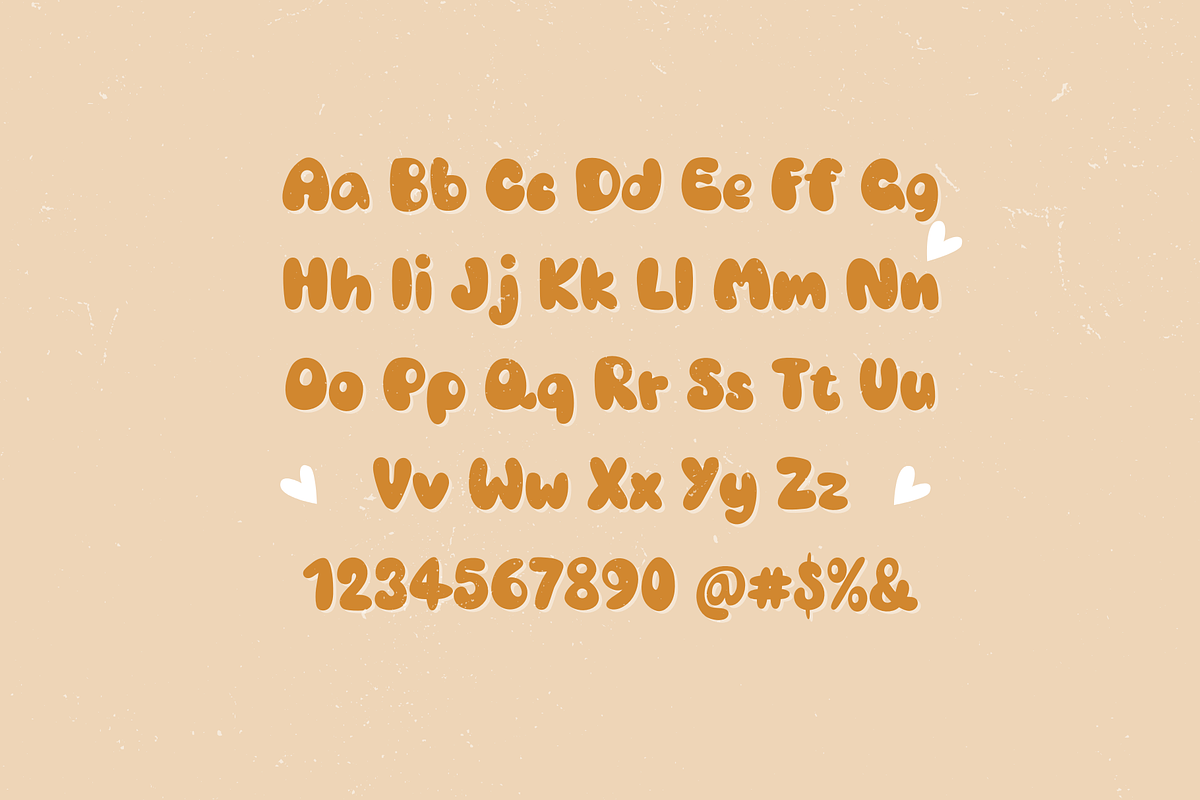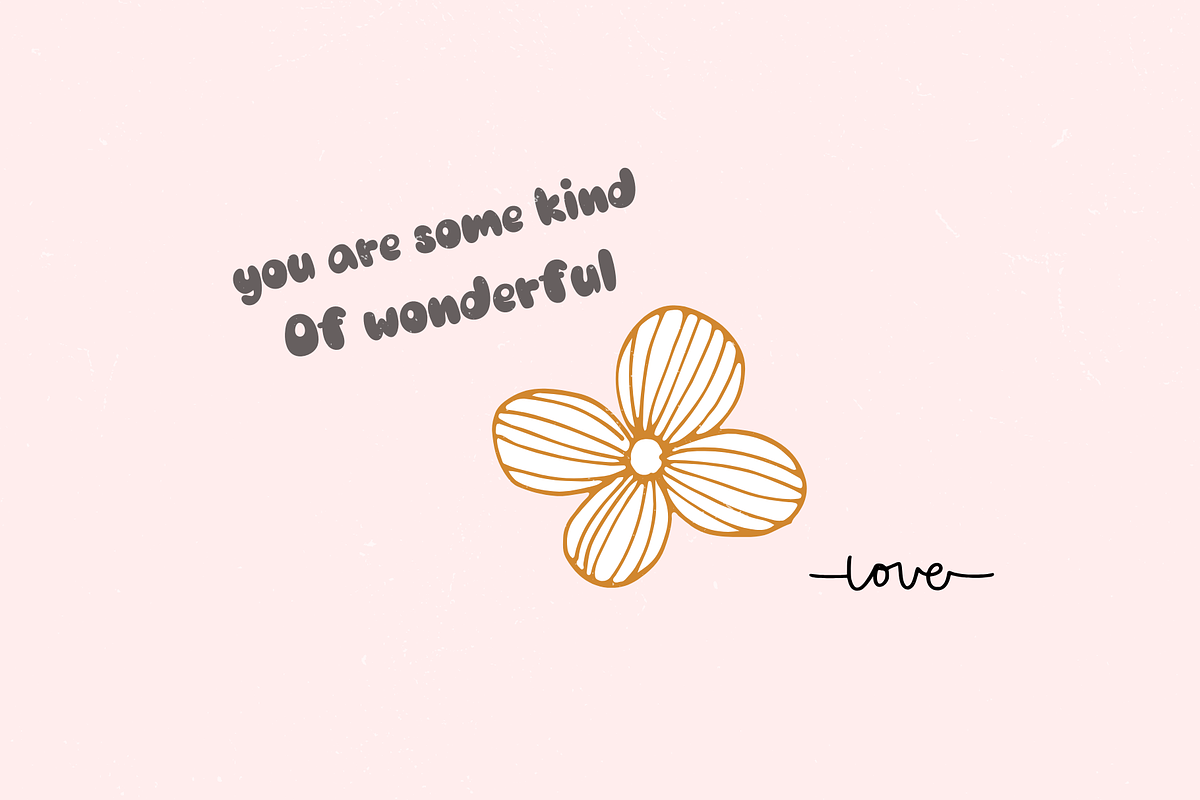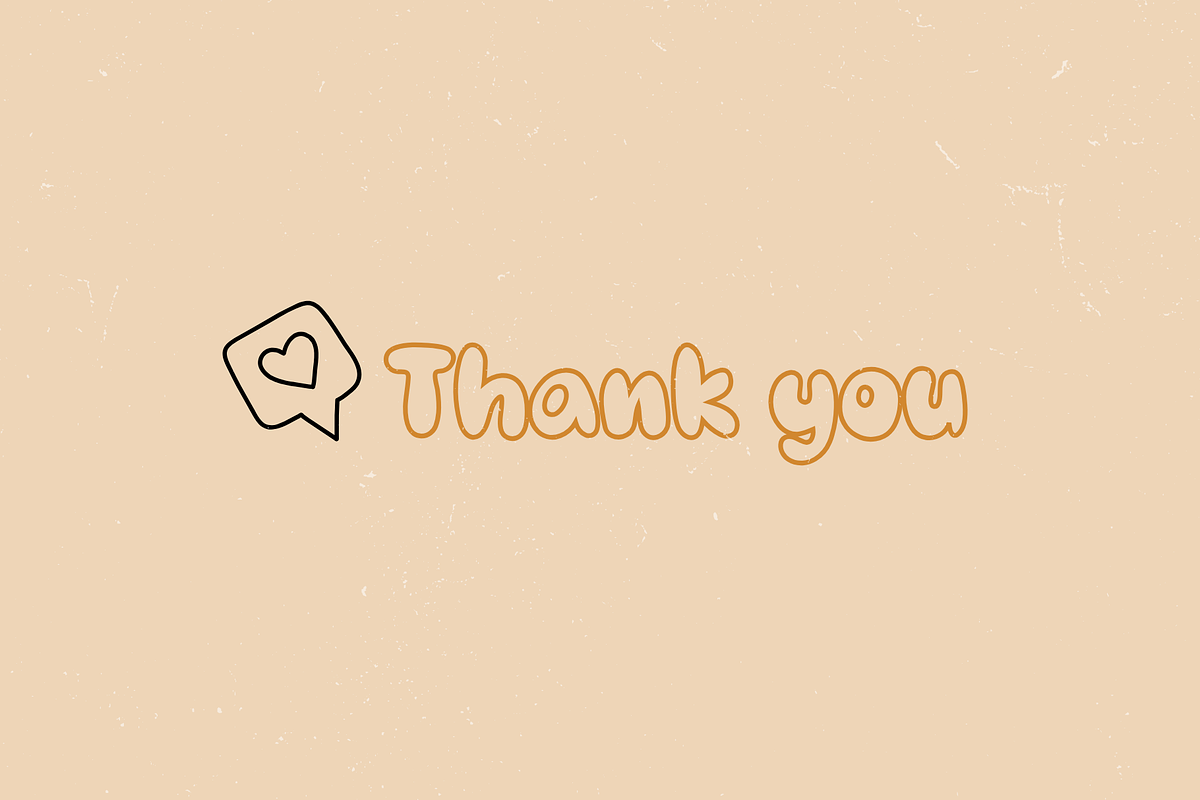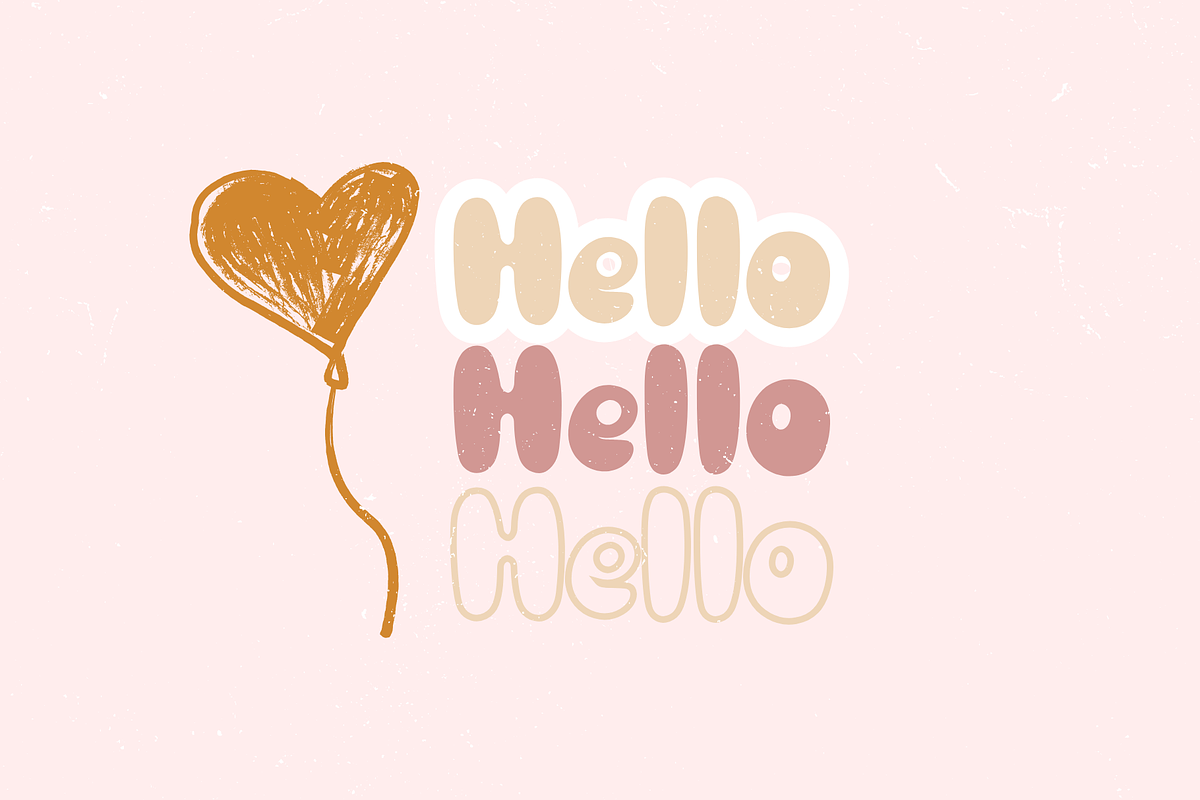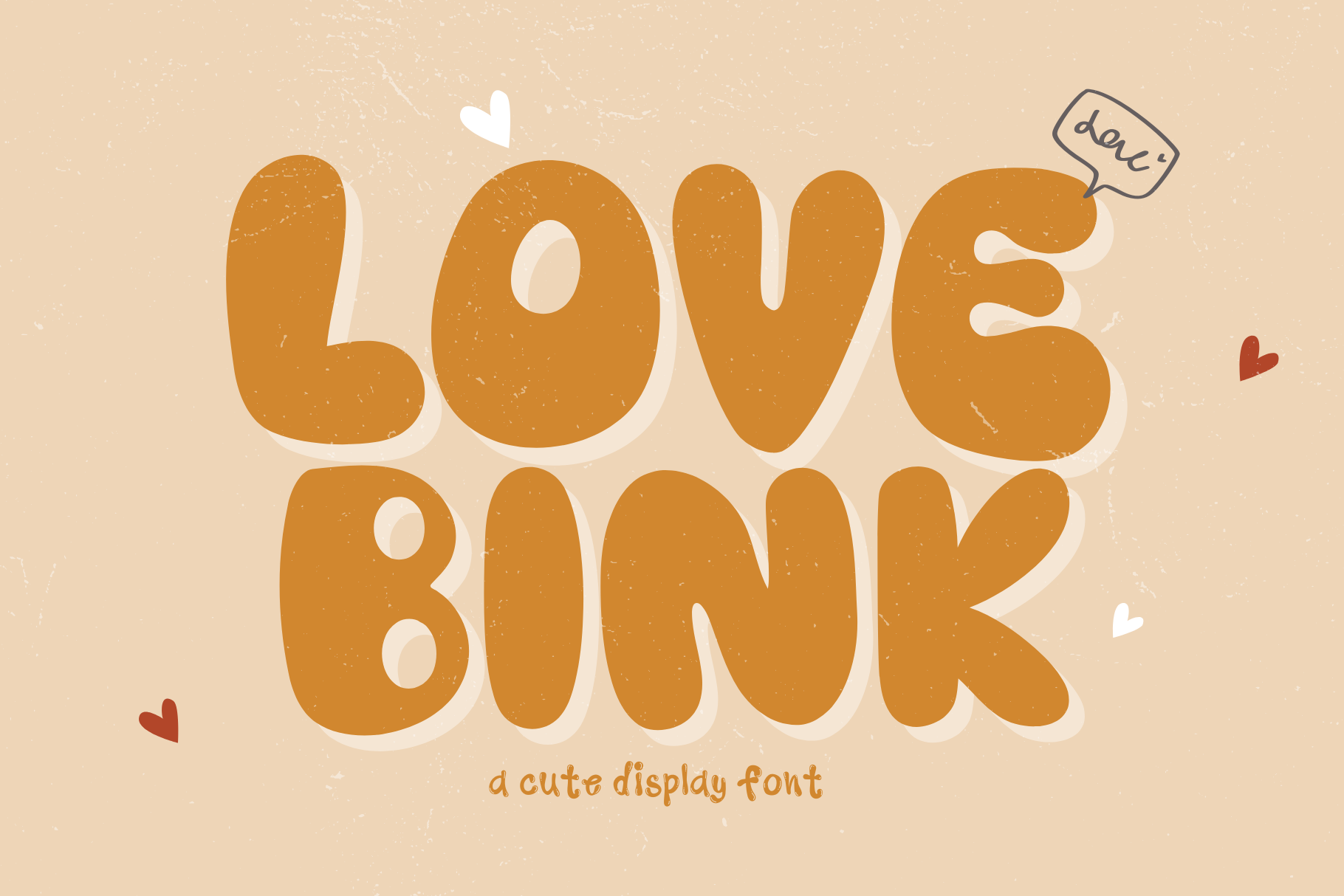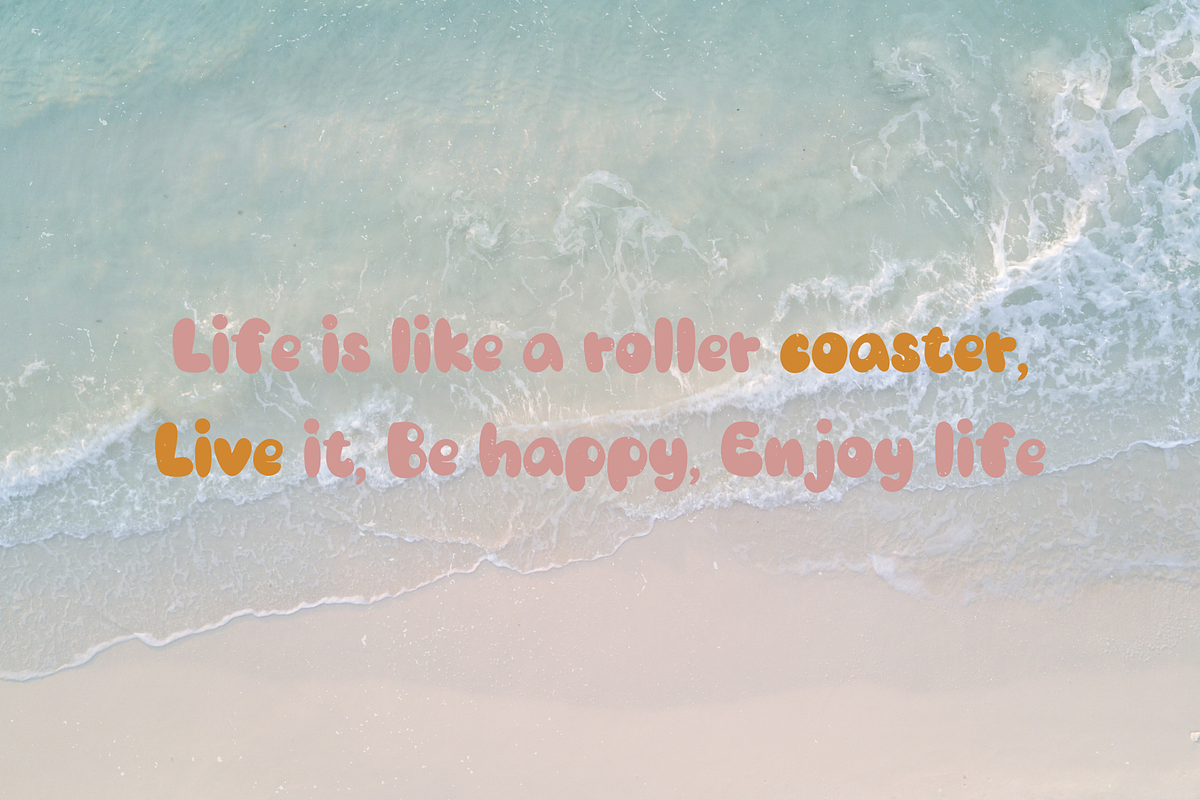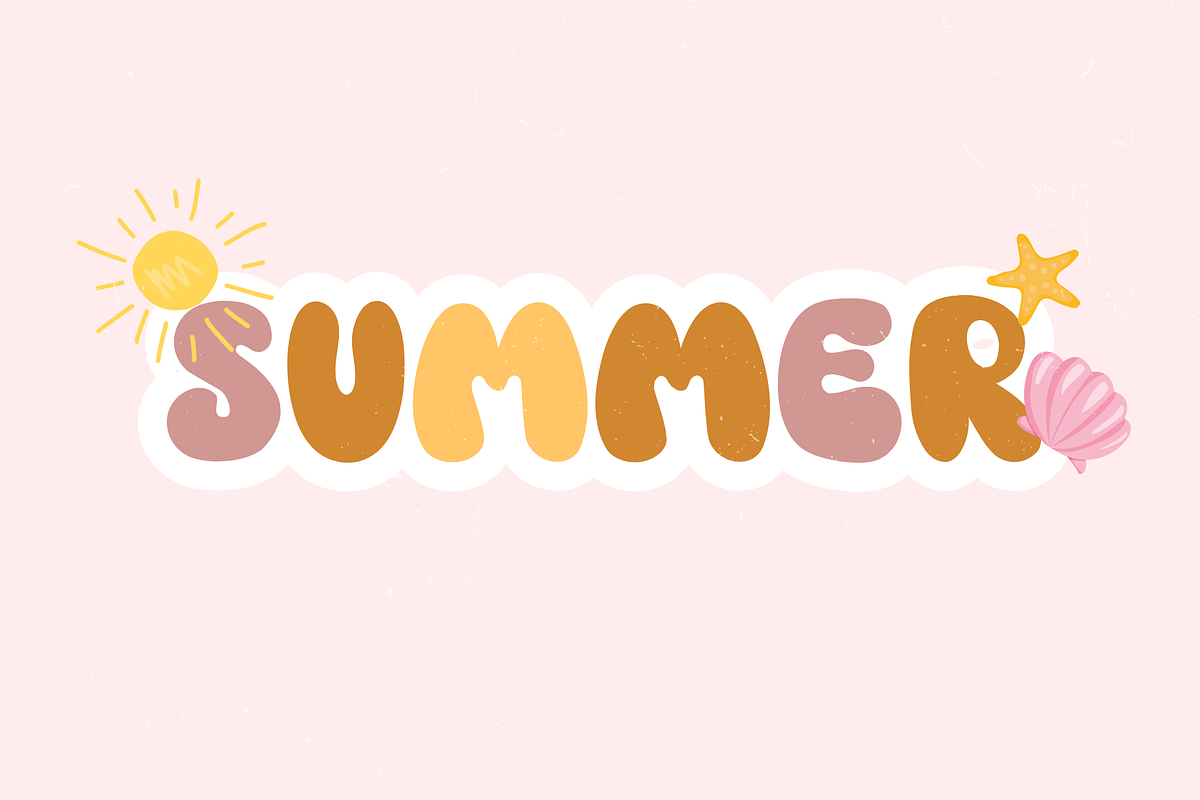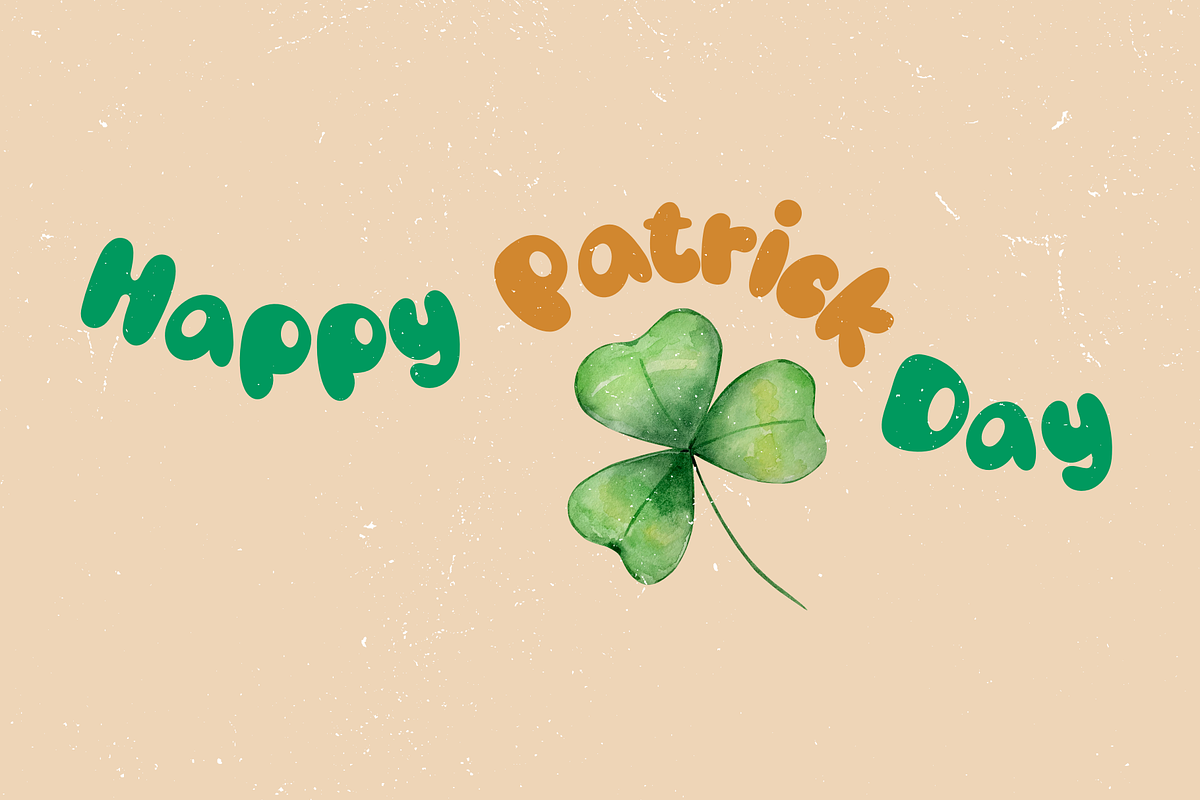
Love bink font
Love bink cute display font .A decorative font that comes with a dose of cuteness, inviting special and intriguing feelings. The small, subtle details in the letters add a touch of charm to your design work, making it unique and stylish. You can use this font for a variety of design projects, from bags and clothing to stickers, hats, notes, drawing apps, and more, enhancing the fun and creativity in your design process.